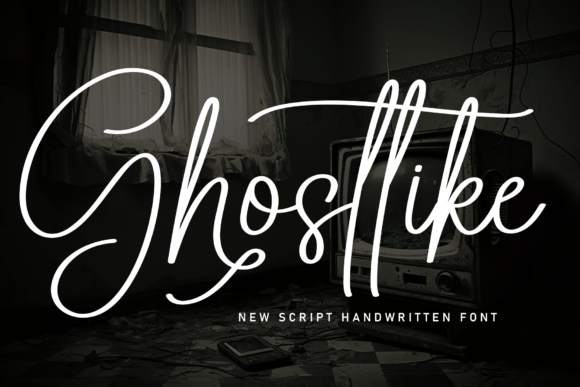
Immerse yourself in a world of enchantment with Ghostlike Font, an exquisite script font that dances with grace and allure. This captivating creation by Roronoa zoro.S.P.D. is the epitome of elegance and sophistication, a testament to the power of artistry.
With its enchanting strokes and mesmerizing curves, Ghostlike Font casts a spell on your designs, inviting viewers into a world of wonder and whimsy. Let your imagination soar as you craft eye-catching logos, branding that speaks volumes, and quotes that resonate with emotion. Each letter, meticulously crafted with love and attention to detail, adds a touch of magic to your creations, making them truly captivating.
Unleash the true potential of your designs with Ghostlike Font. Its versatility knows no bounds, lending itself effortlessly to a myriad of projects. From posters that command attention to flyers that whisper of adventure, this font is your muse, your faithful companion on the journey of creativity.
Experience the magic of Ghostlike Font today and let your designs take flight. Embrace the timeless beauty of handwritten artistry and watch as your words dance across the screen, captivating hearts and minds.